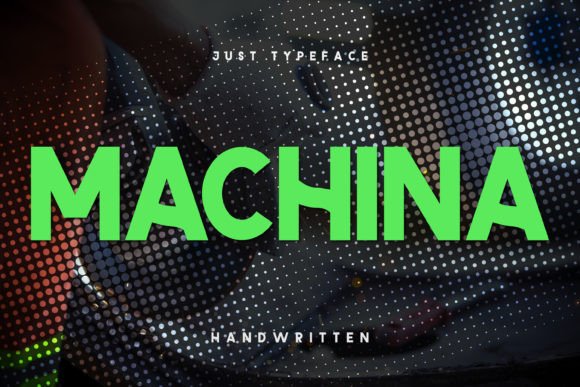
Journey into the world of Machina, a playful and spirited sans serif font family, crafted with impeccable precision to ignite your creative spark. Machina's captivating personality is bound to leave an indelible mark on your designs, transforming them into visual masterpieces.
Unleash your imagination and let the characters of Machina dance across your screens, creating captivating headlines, eye-catching posters, and enchanting branding materials. Its clean lines and graceful curves exude a sense of elegance, while its playful spirit adds a touch of whimsy to your designs.
With Machina, you'll discover a font that's as versatile as it is striking. Its robust structure and unwavering legibility make it the perfect choice for both print and digital projects, ensuring your message is conveyed with clarity and impact across various platforms.
Embrace the boundless possibilities of Machina. Let its distinctive style elevate your posters, brochures, flyers, and website designs to new heights of visual appeal. Watch as your words come alive, captivating your audience with their charm and allure.
Don't miss out on the magic of Machina. Add it to your creative arsenal today and embark on an artistic adventure where imagination knows no bounds. Immerse yourself in a world where typography transcends the ordinary, becoming an art form that speaks directly to the hearts of your audience.